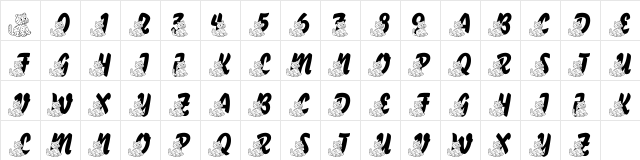
LMS A Berry Nice Cat Regular Font Preview
LMS A Berry Nice Cat Regular
LMS A Berry Nice Cat Regular Font Details
Design Context for LMS A Berry Nice Cat Typeface
LMS A Berry Nice Cat is a composed and adaptable typeface that performs quietly and consistently across a wide range of design contexts.